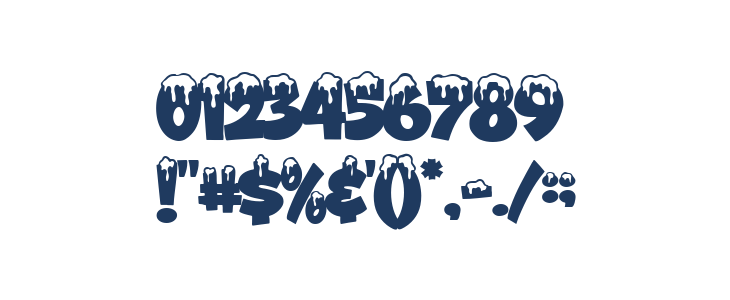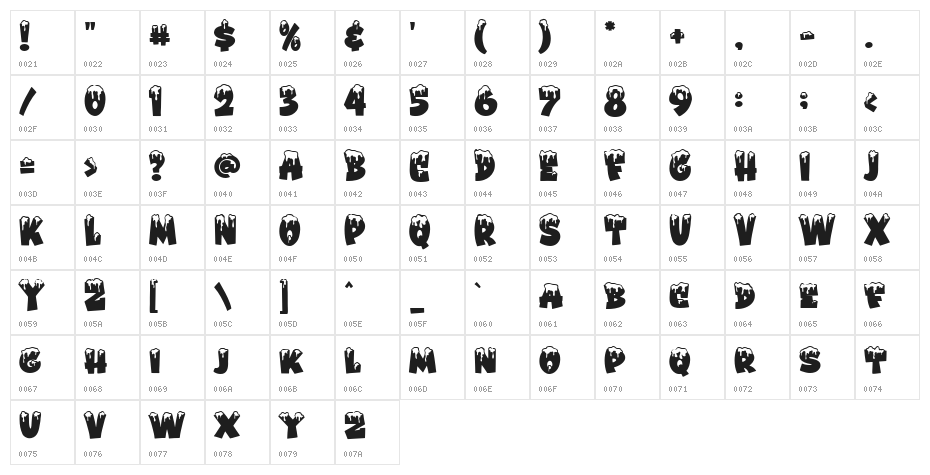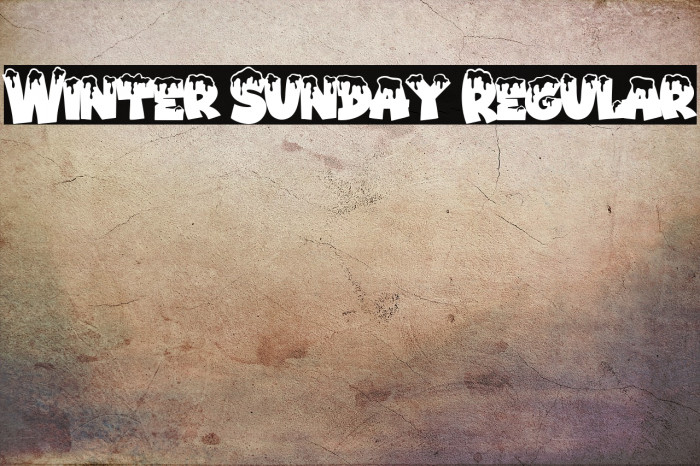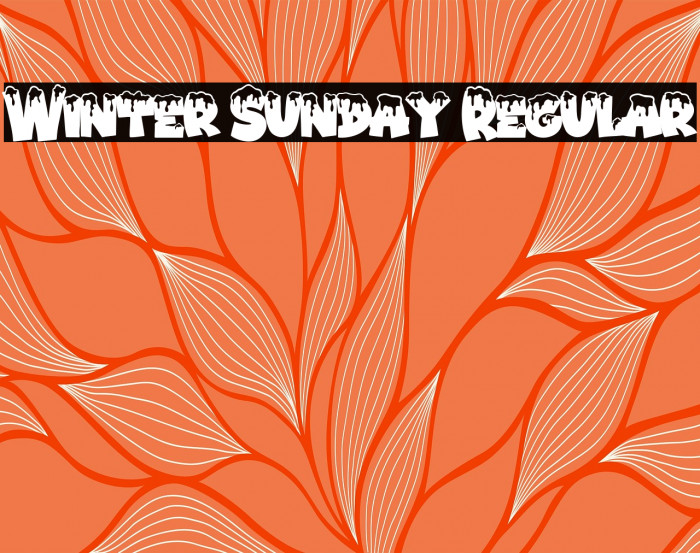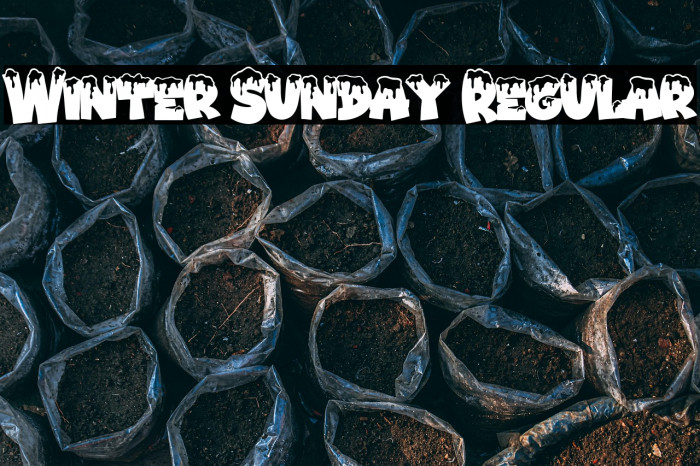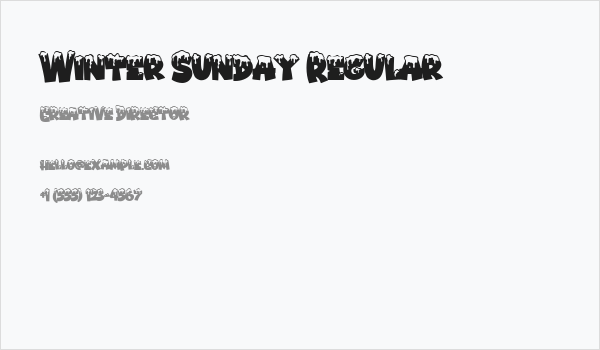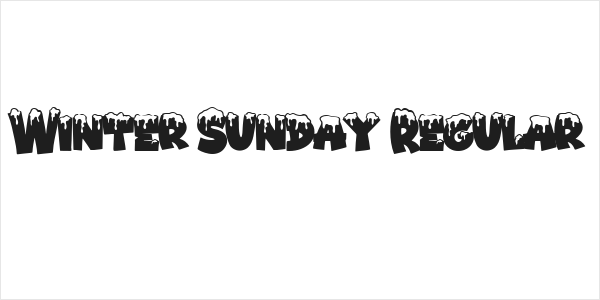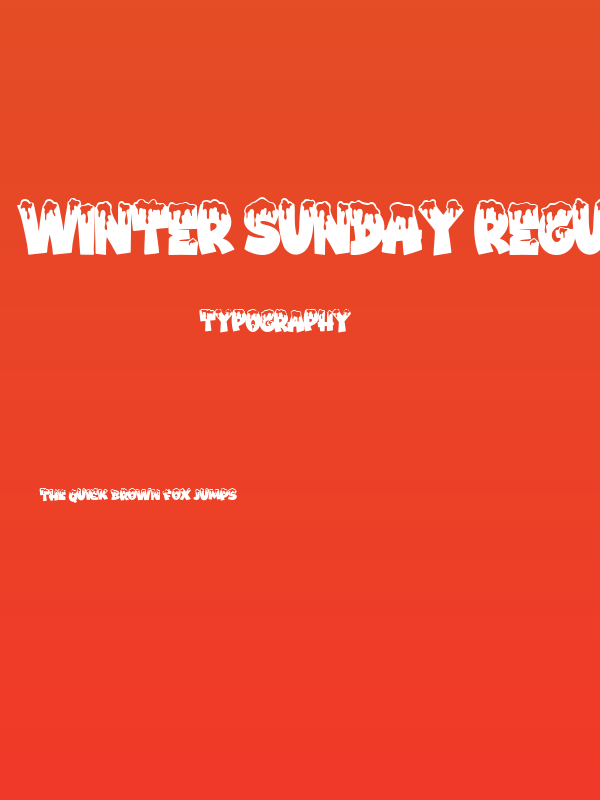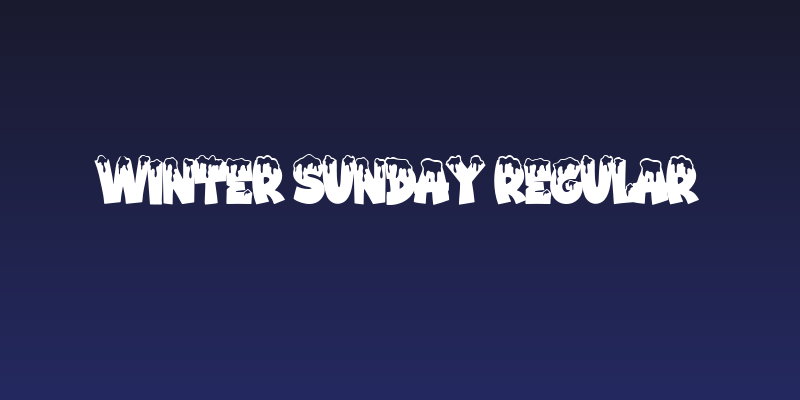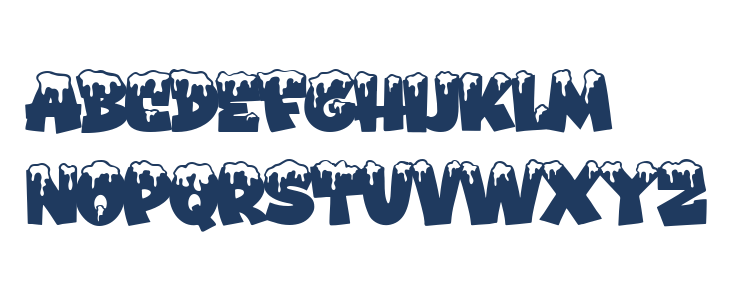
Winter Sunday Regular Font
Winter Sunday Regular Description
This playful and bold font features a unique winter theme, with each character adorned with snow-like caps that give the impression of a frosty, icy surface. The letters are thick and chunky, providing a strong visual impact, while the snow detail adds a whimsical and festive touch. The font maintains a consistent weight throughout, ensuring readability despite its decorative nature. The characters are tightly spaced, enhancing the cohesive look of the text. This font is perfect for capturing the essence of winter and holiday-themed projects, offering a fun and engaging style.
| Proposed Projects | Ideal for holiday cards, winter event posters, festive banners, and seasonal advertisements. |